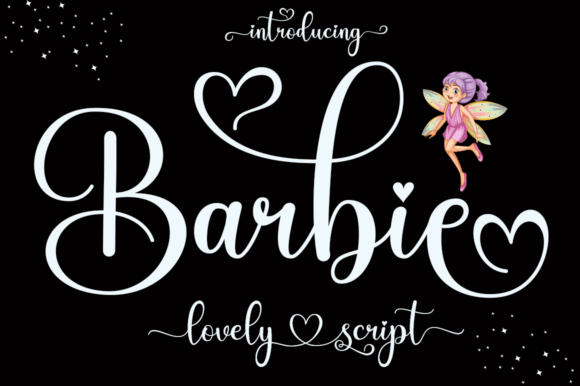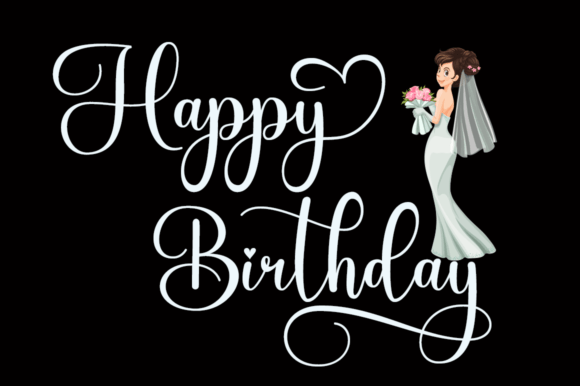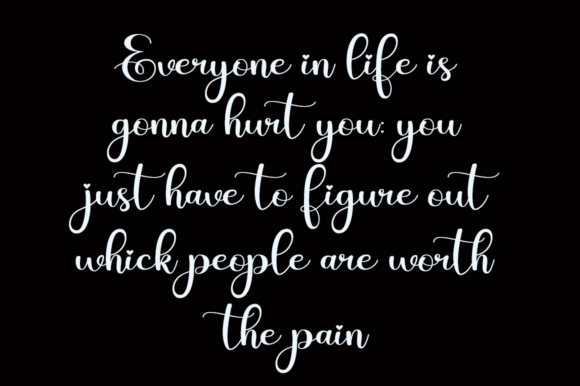
About the Barbie Font
Make a bold statement with Barbie Font, a powerful and memorable font. Barbie is an elegant and flowing handwritten font. It features varied baselines, smooth lines, gorgeous glyphs, and stunning alternatives. It maintains a classy calligraphic influence while feeling contemporary and fresh. Fall in love with this font and take your projects to the highest level!
Barbie Font Usage Examples